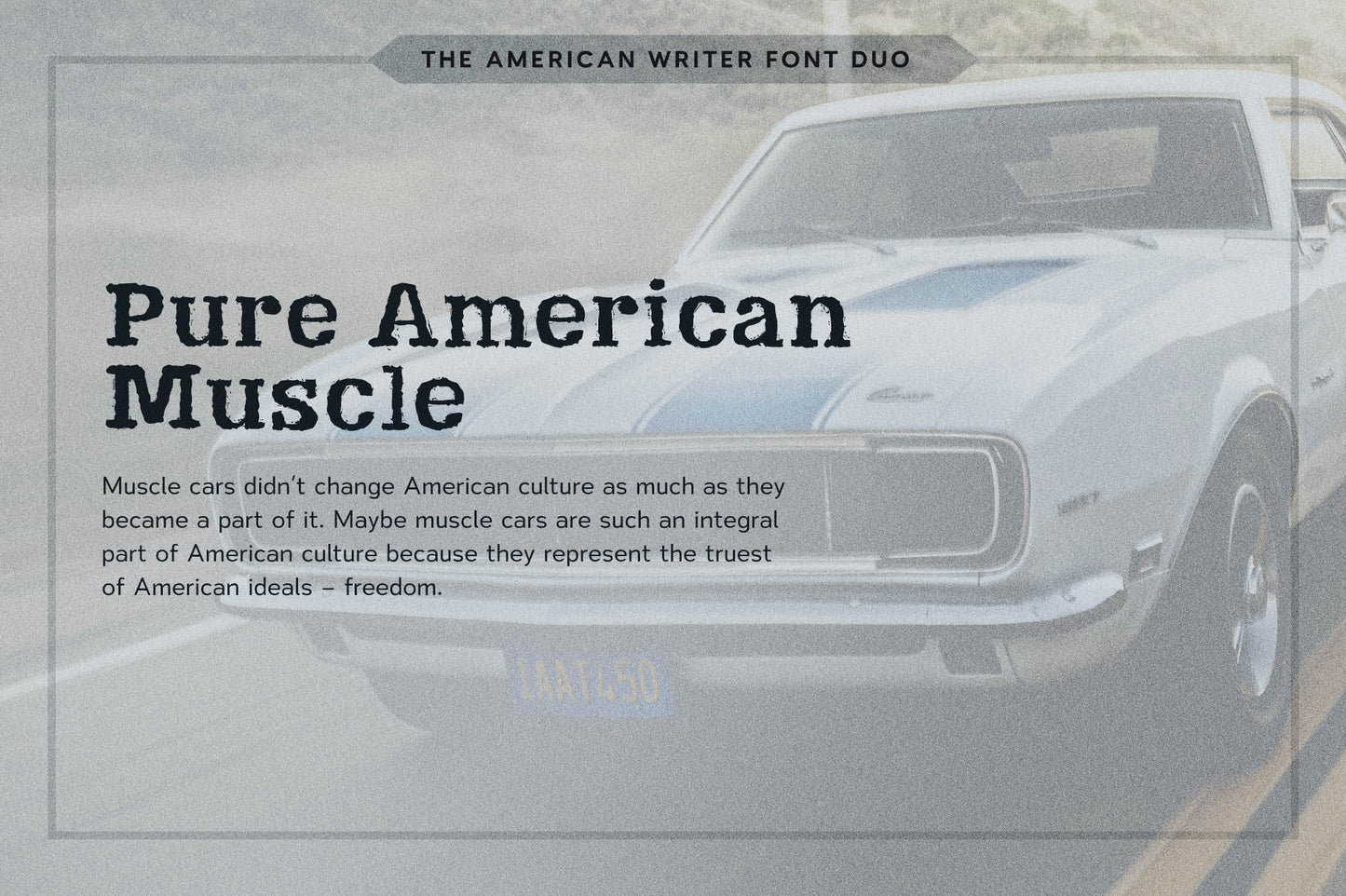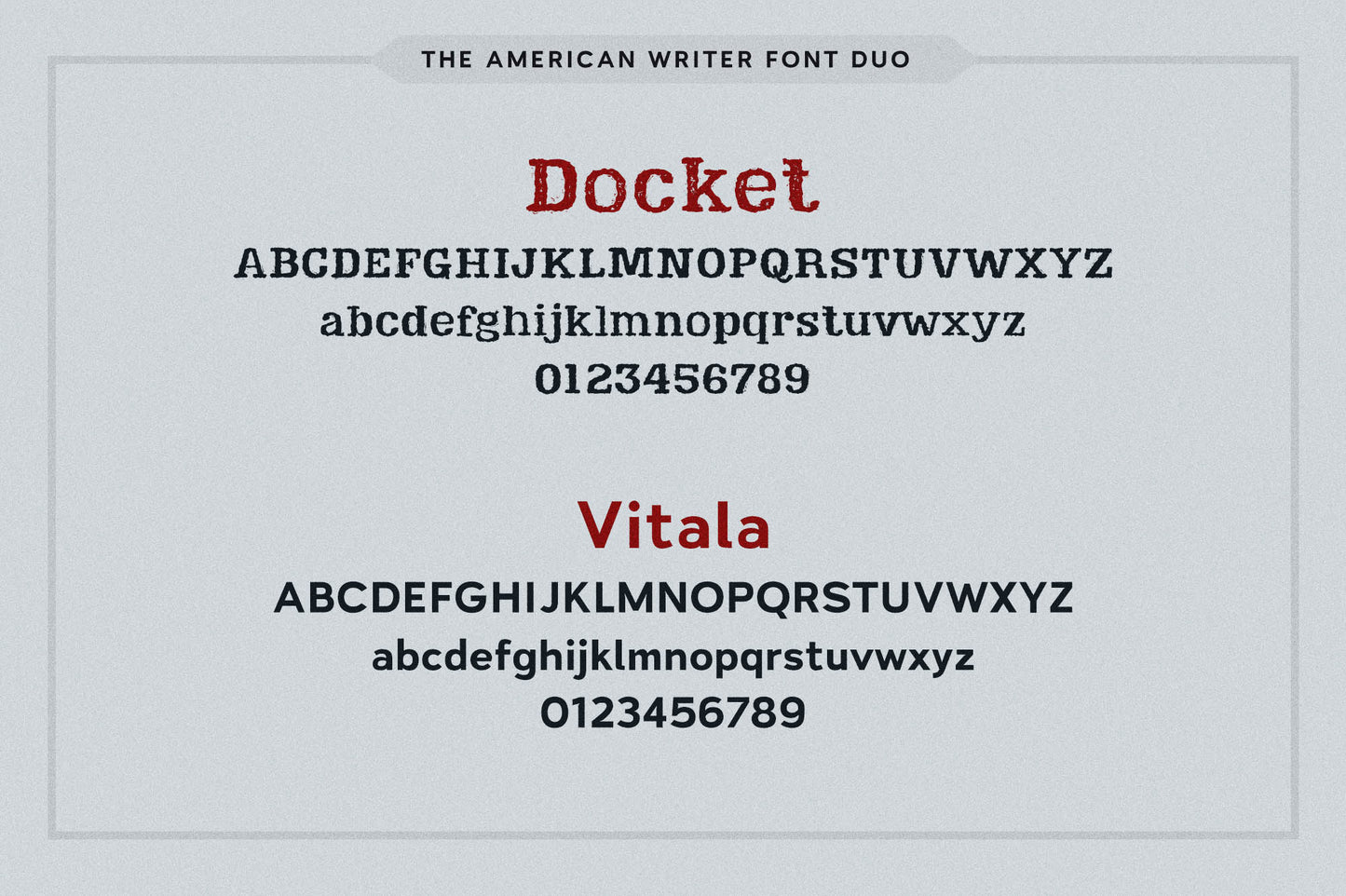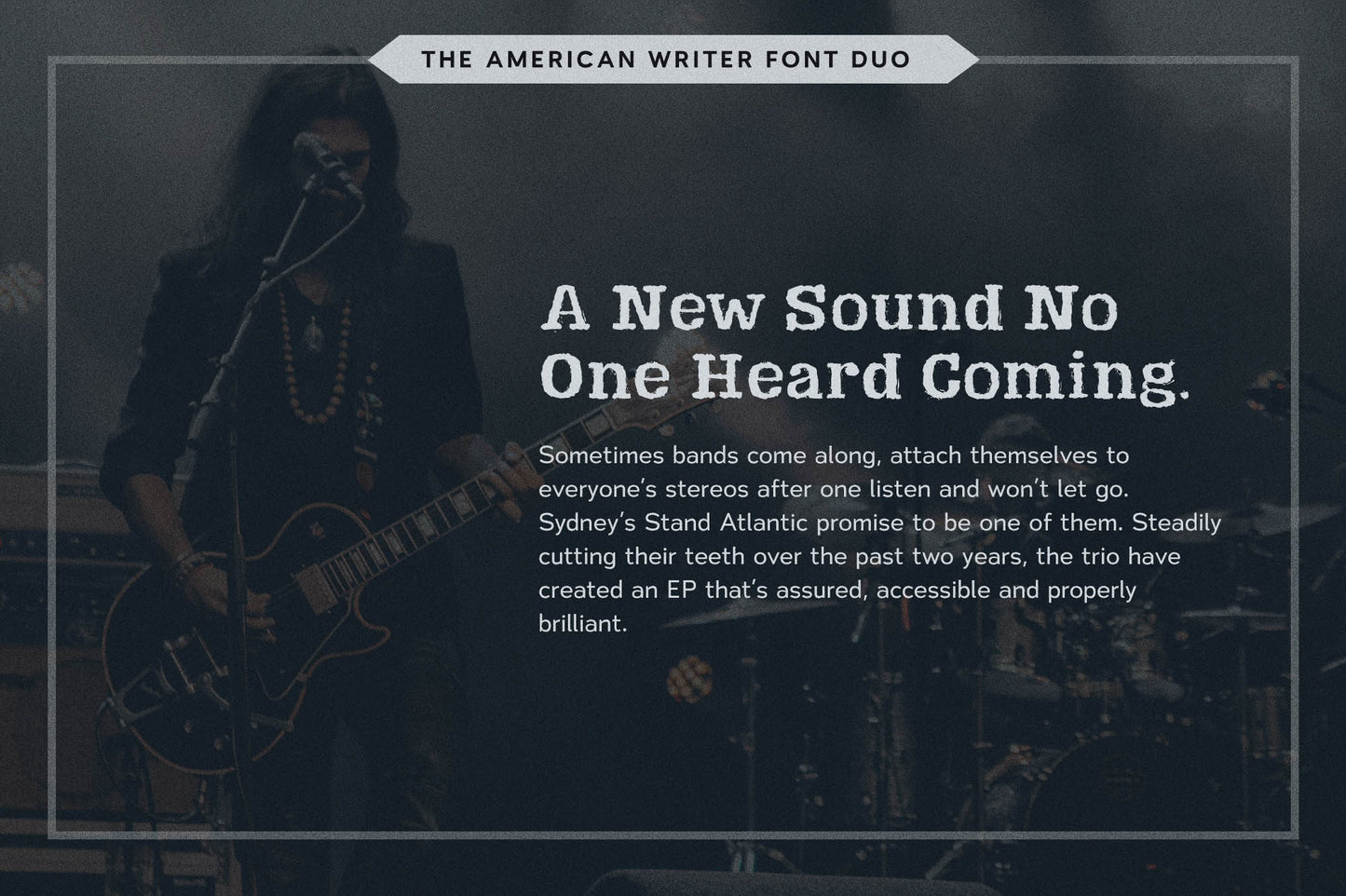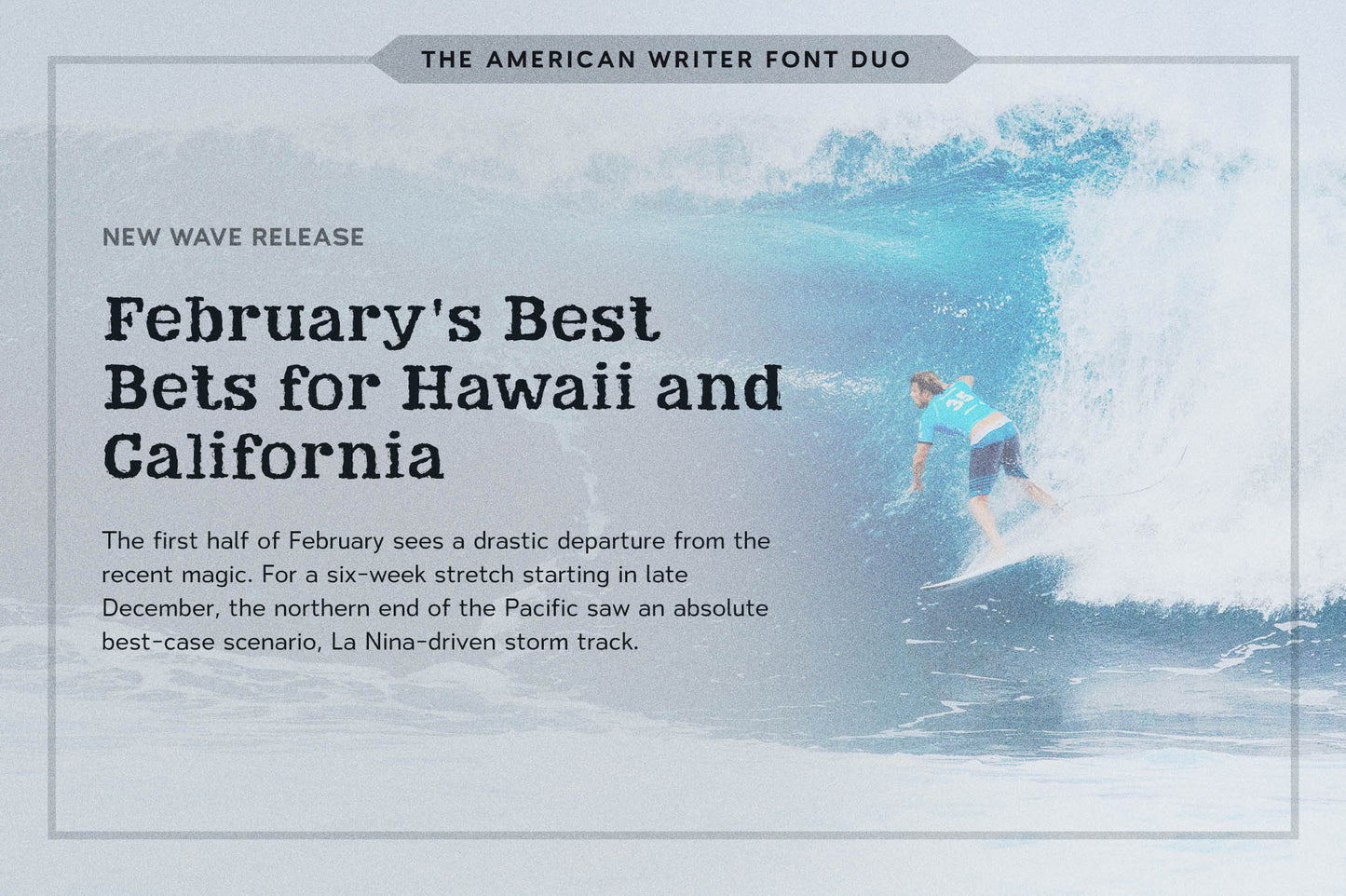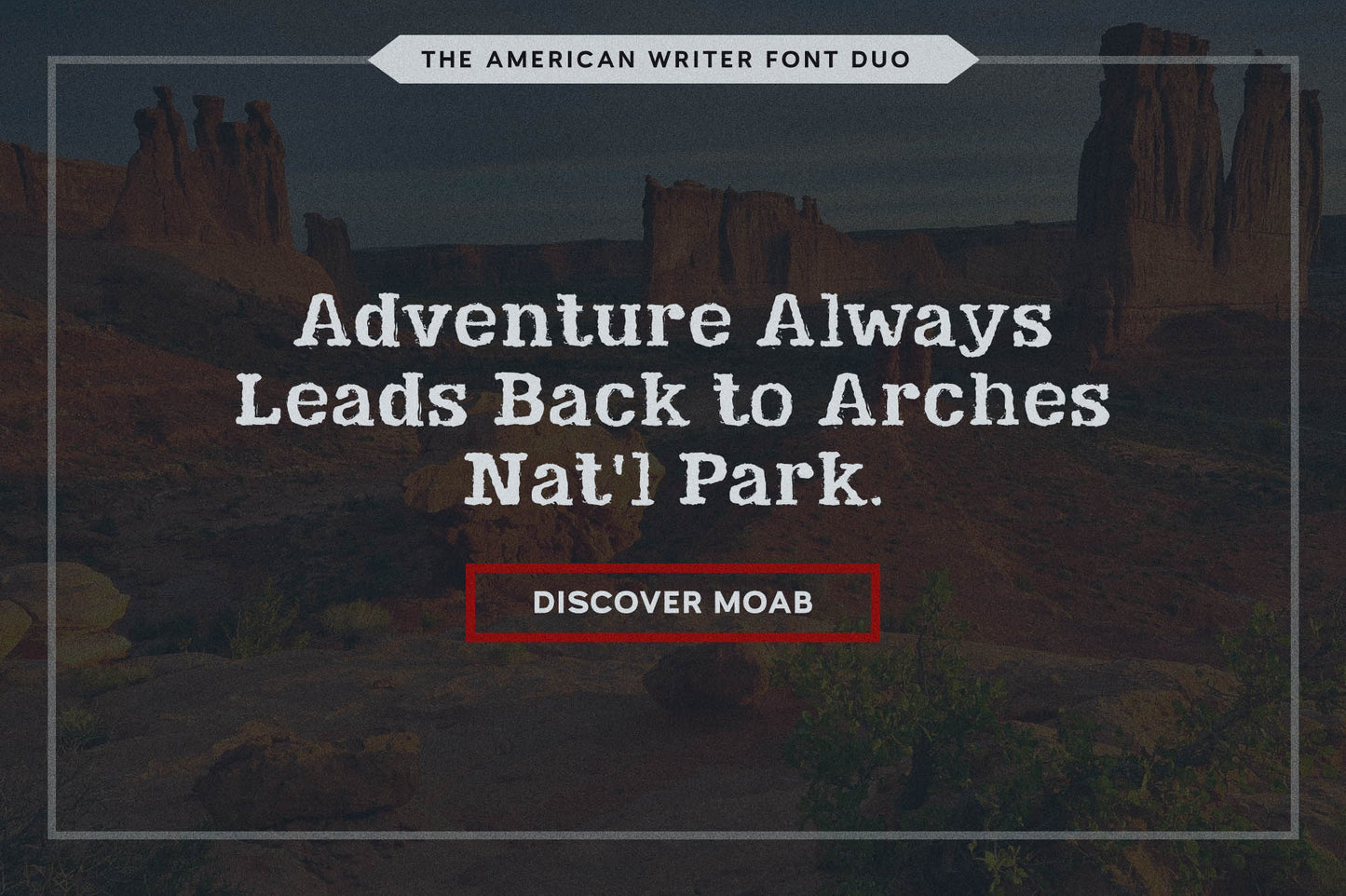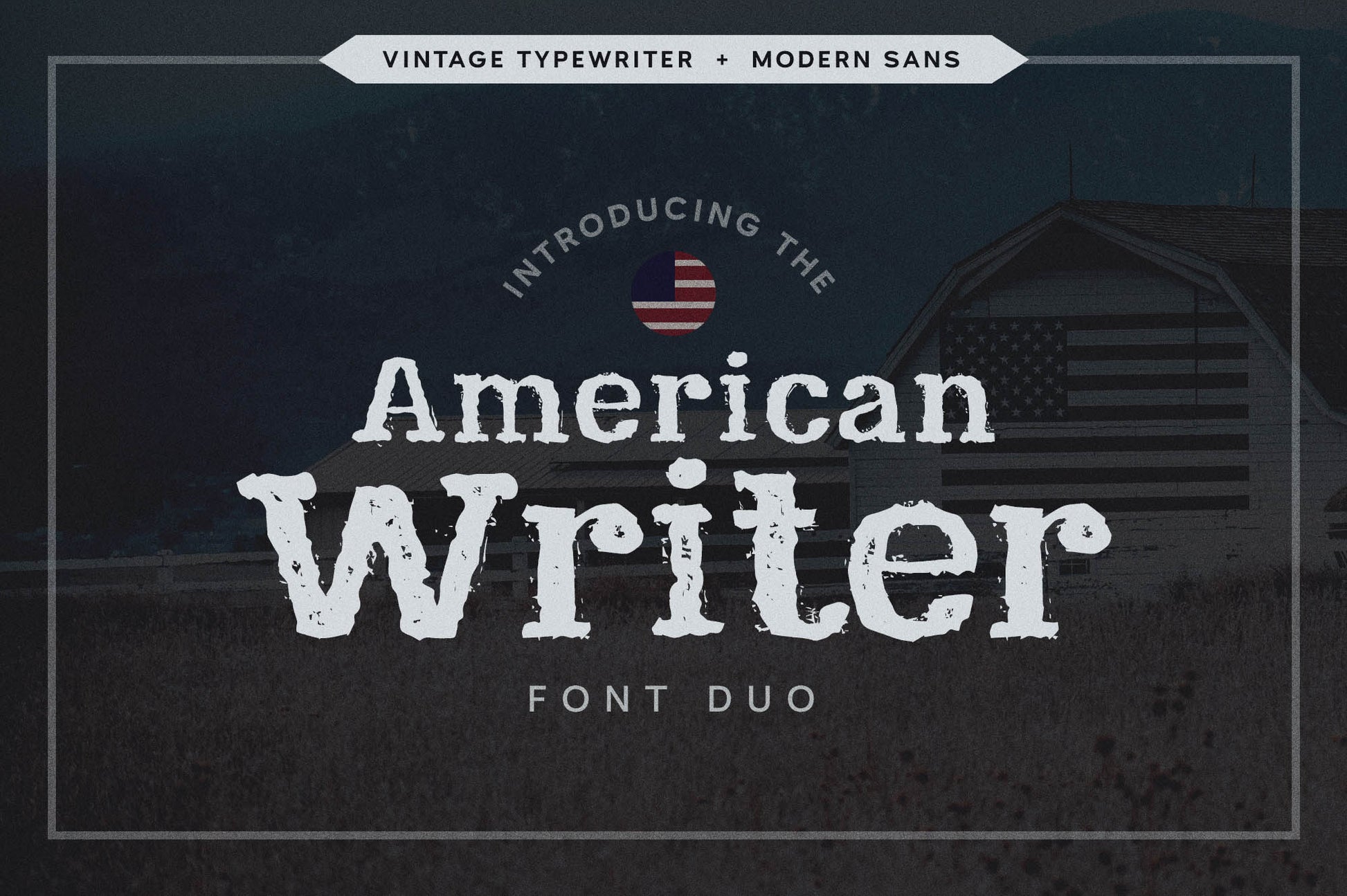
American Writer Vintage Font Duo
By combining both vintage and modern styles, the American Writer Font Duo delivers a highly unique look to websites, blogs, ebooks, publications and more! Use Docket for bold headlines and the flexible Vitala for body copy, buttons, and other CTA's.
Docket: With it's distressed markings and rough edges, Docket mimics the appearance of a vintage typewriter from the 1940s – ideal for grunge designs that need that hand-crafted look.
Vitala: Designed to be highly readable with a unique personality, Vitala achieves both with an incredibly balanced character set and subtle humanist characteristics. Style your body copy and subheadings however you like with this highly versatile typeface which comes with 8 weight variations + obliques.